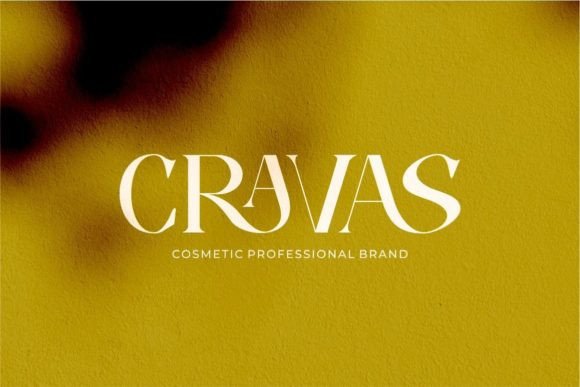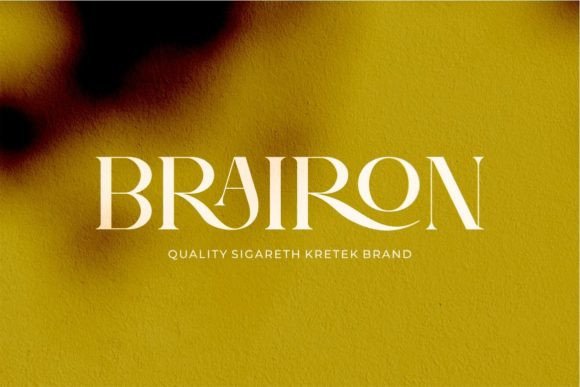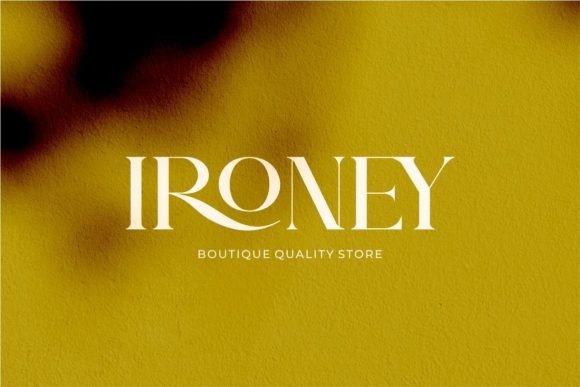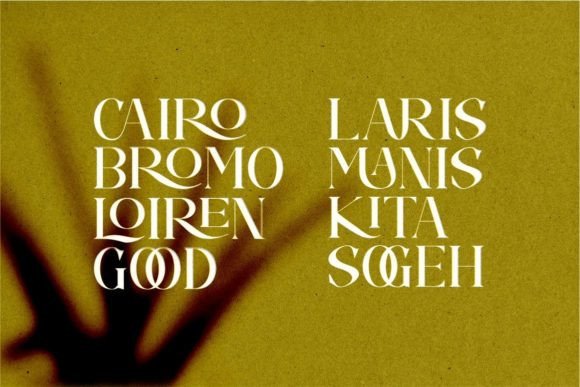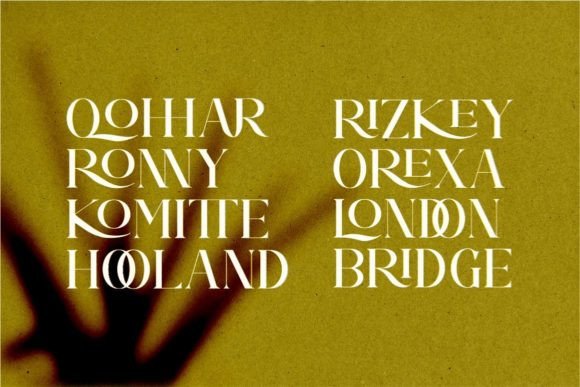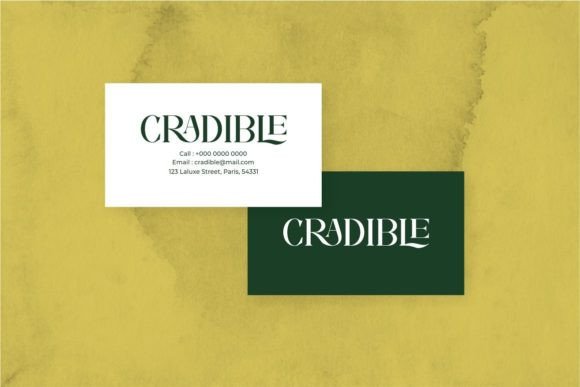
Introduction to Royale Brone Font
As a designer, have you ever found yourself stuck in a creative rut, searching for that perfect font to elevate your project to the next level? For me, it’s a moment of pure bliss when I stumble upon a font that not only resonates with my vision but also exudes the level of sophistication and refinement I’m aiming for. And that’s exactly what I experienced when I discovered the Royale Brone Font.
This exquisite serif font is a true gem for designers, offering a level of elegance and refinement that’s hard to find in today’s design landscape. With its perfectly balanced strokes and delicate serifs, the Royale Brone Font is perfect for luxury branding, high-end publications, and prestigious events. And the best part? It’s PUA encoded, making it effortless to access all glyphs and swashes for a truly seamless design experience.
About Royale Brone Font
Key Features of Royale Brone Font
- High-quality design resource ideal for creative projects, offering a unique aesthetic.
- Features a transparent background, allowing for easy customization and versatility in design applications.
- Designed with a high resolution, ensuring crisp and clear text display, even at larger font sizes.
- Unique characteristics include a distinctive, modern style and a wide range of glyph support, making it suitable for various design projects.
Honest Review: Royale Brone Font
As a designer, I’m always on the lookout for high-quality design resources to elevate my creative projects. Recently, I came across the Royale Brone Font, and I was curious to see what it had to offer. Here’s my honest review.
- ✨ Unique and modern design aesthetic: The Royale Brone Font has a distinct and stylish look that’s perfect for modern branding and design projects.
- ✨ High-quality typography: The font is well-crafted and offers crisp, clear typography that’s easy to read.
- ✨ Transparent background: This feature makes it easy to use the font with transparent backgrounds, adding flexibility to your design projects.
- ⚠️ Limited character set: The font’s character set is relatively limited, which may not be ideal for projects that require a wide range of characters.
- ⚠️ Not ideal for small text: The font may not be the best choice for small text, as it can become difficult to read at smaller sizes.
Overall, the Royale Brone Font is a solid addition to any designer’s toolkit. While it may have some limitations, its unique design aesthetic and high-quality typography make it a great choice for modern design projects. With its transparent background and free download, it’s definitely worth checking out.
Royale Brone Font
When using the Royale Brone Font, be sure to use it in conjunction with other design elements to create a cohesive look. You can also experiment with different font sizes and colors to add emphasis to your text.
The Royale Brone Font is great for a variety of creative projects, including logos, brochures, and business cards. Its high quality and transparent background make it perfect for use in digital designs as well as print materials.